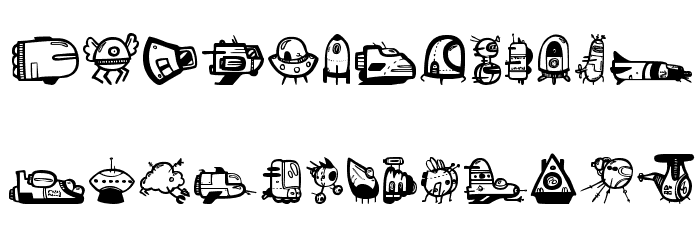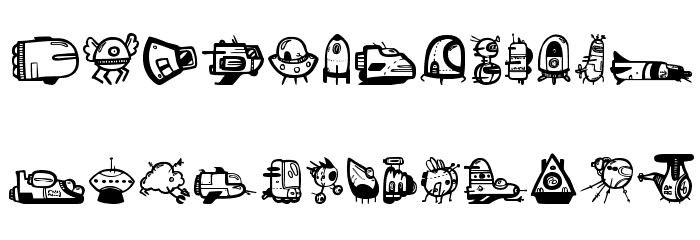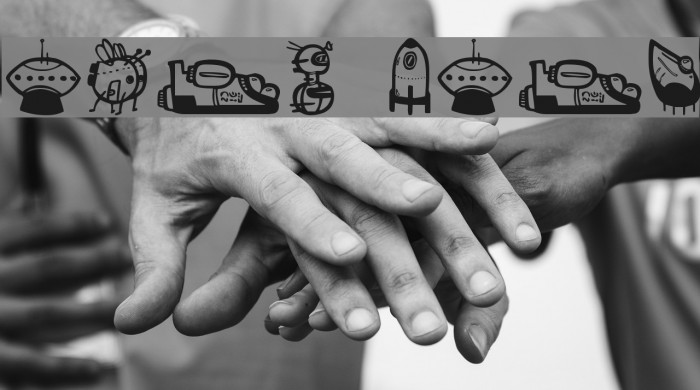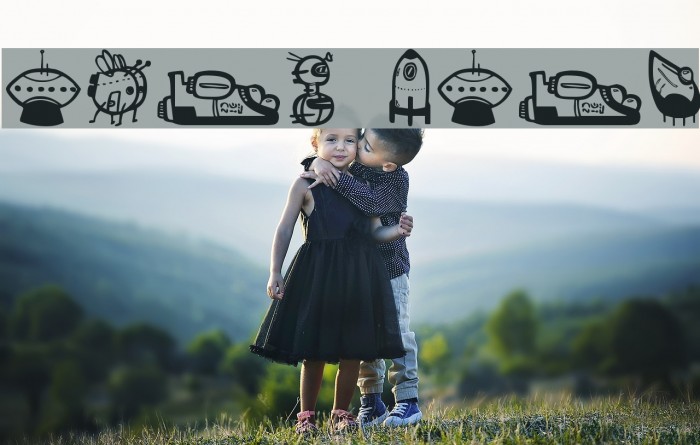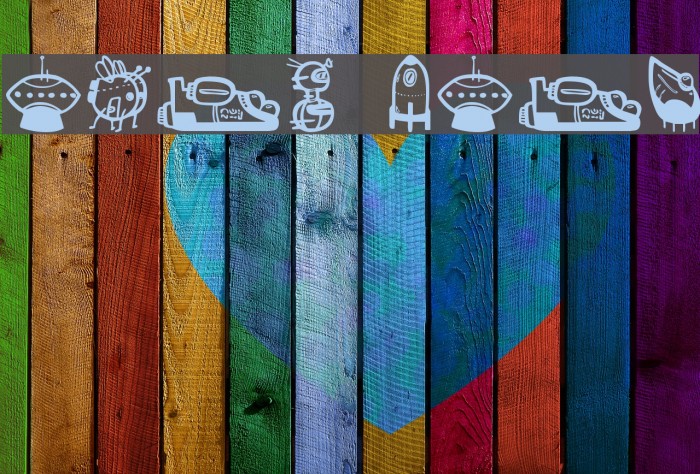
ovni Font
This is a playful and imaginative decorative font featuring a series of whimsical alien and spaceship illustrations. Each character is uniquely designed, showcasing a variety of extraterrestrial themes and elements. The font captures a sense of fun and creativity, with each glyph resembling a different alien or spacecraft, making it ideal for projects that require a touch of fantasy or science fiction. The characters are bold and detailed, providing a visually engaging experience. The font is not suitable for traditional text but serves as an artistic representation of alien-themed imagery.
A whimsical decorative font with alien and spaceship illustrations.
- Font: ovni
- Proposed Projects: Ideal for children's books, sci-fi themed posters, creative invitations, and novelty merchandise.
- Use Case: Logos, Posters, Creative Projects